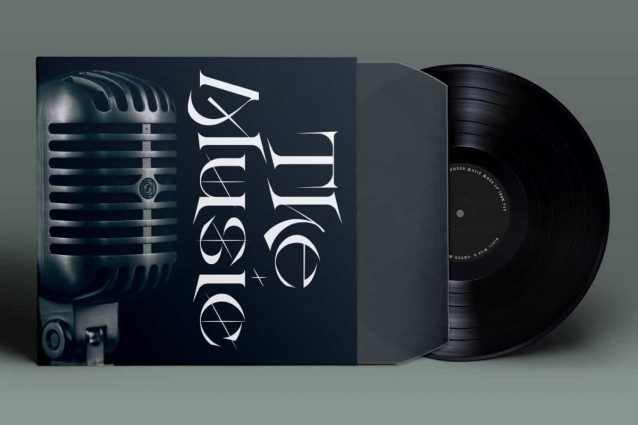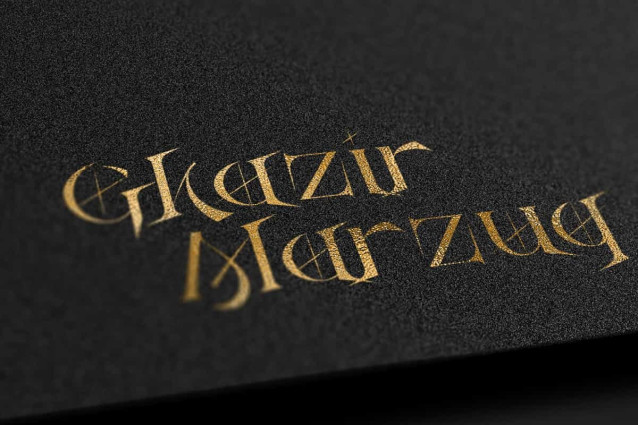
Ninja Soldier Font
Ninja Soldier Font is a unique sharp decorative font with ninja theme. This font carries a ninja theme by adding samurai effects or weapons that are identical to ninjas. It will be good for any designs, such as custom design, invitation, label, signage, advertisement, brand image, marketing material, poster, product packaging, quotes, stationery, website page, and more!
Ninja Soldier Font includes a full set of ALL CAPS for Uppercase and Lowercase Letters, Numerals, and large range of Punctuation. This awesome font will be suitable for various industries, such as event or festival, cafe, fashion, game, movie, photography, printing, publishing, etc.